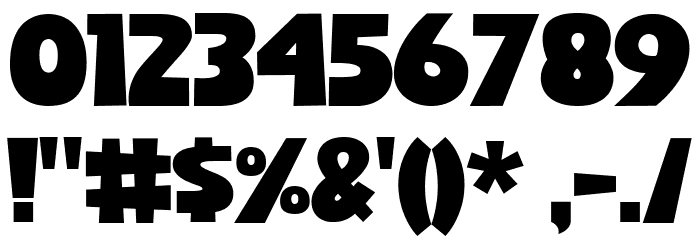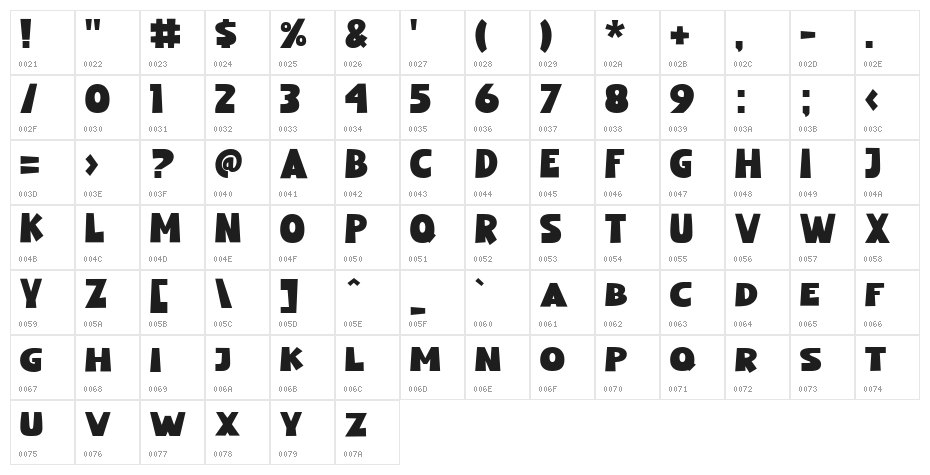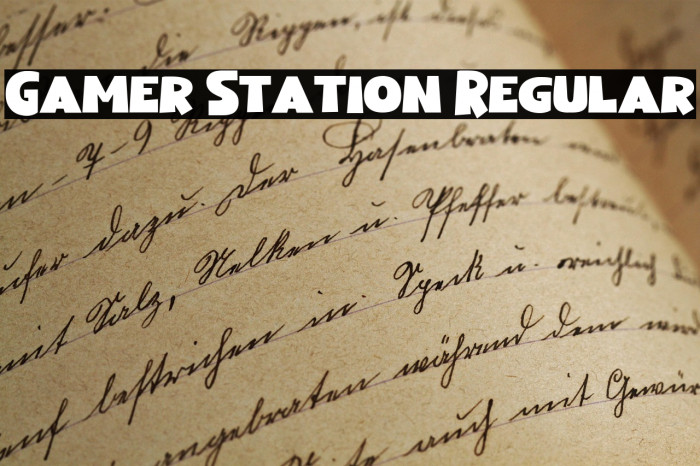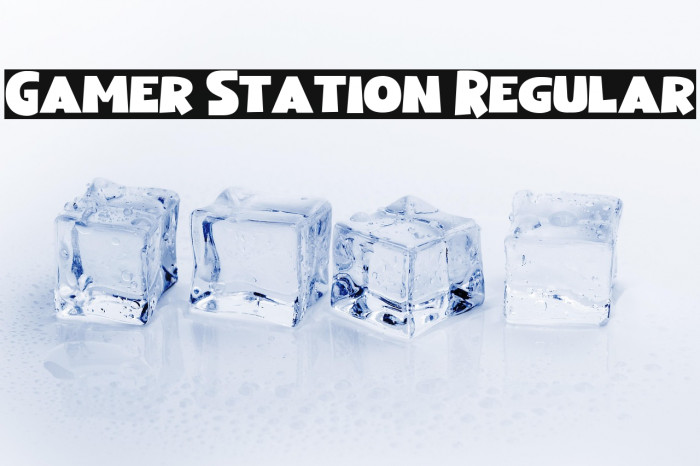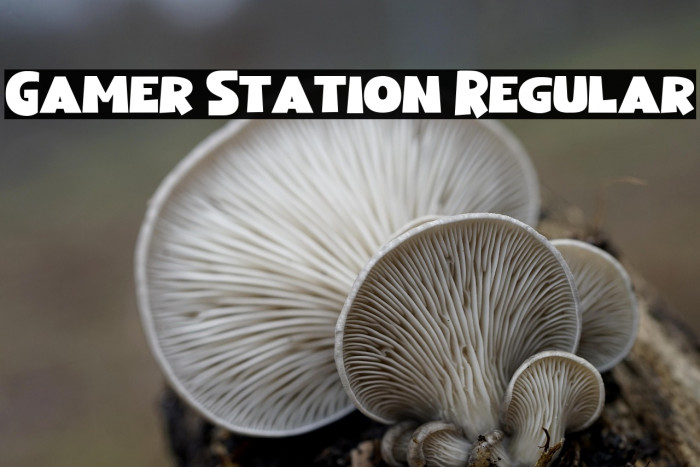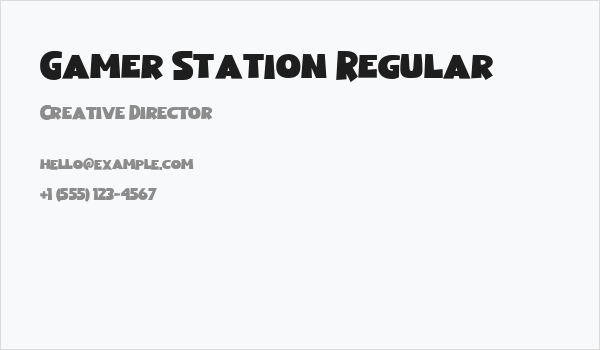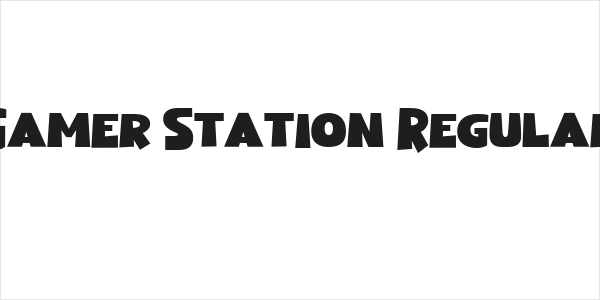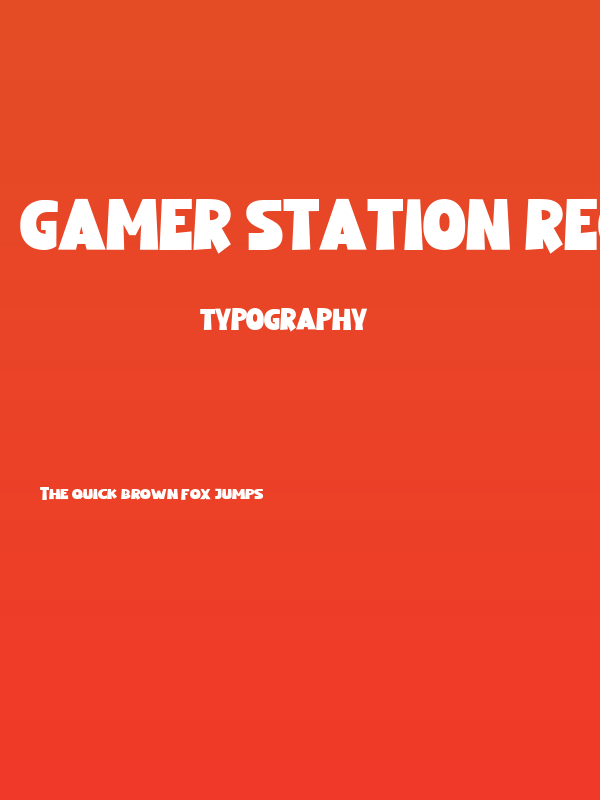
Gamer Station Regular Font
Gamer Station Regular Description
This font features bold, angular characters with a strong, dynamic presence. The letters are designed with a slight slant, giving them a sense of motion and energy. The thick strokes and sharp edges make it highly legible and impactful, suitable for attention-grabbing headlines or titles. The numbers and special characters maintain the same bold and angular style, ensuring consistency across all text elements. This font is ideal for projects that require a modern, edgy look.
| Proposed Projects | Perfect for gaming logos, posters, video game titles, and any project needing a bold, modern aesthetic. |